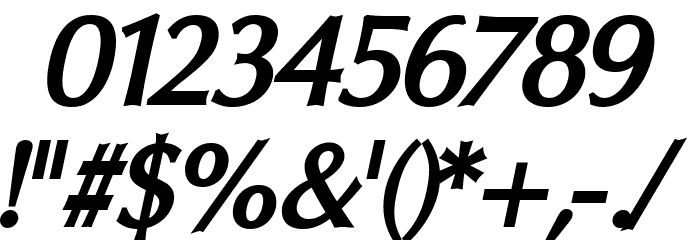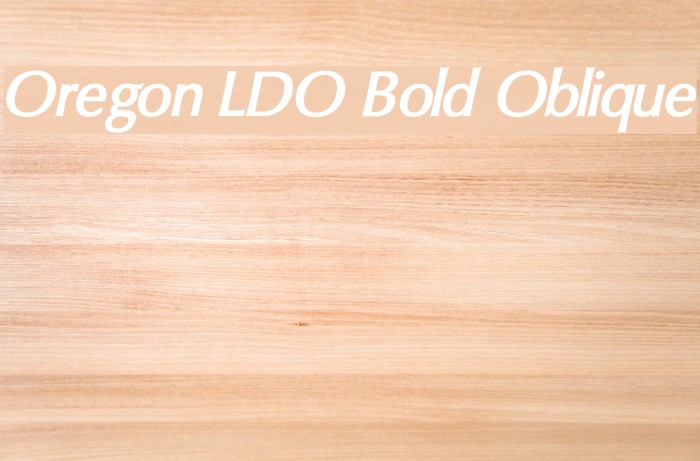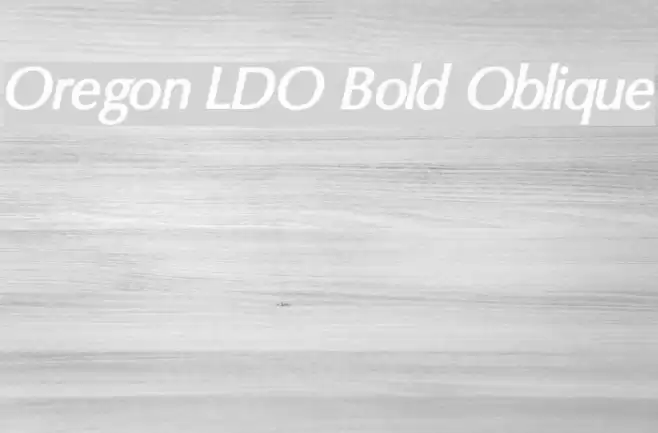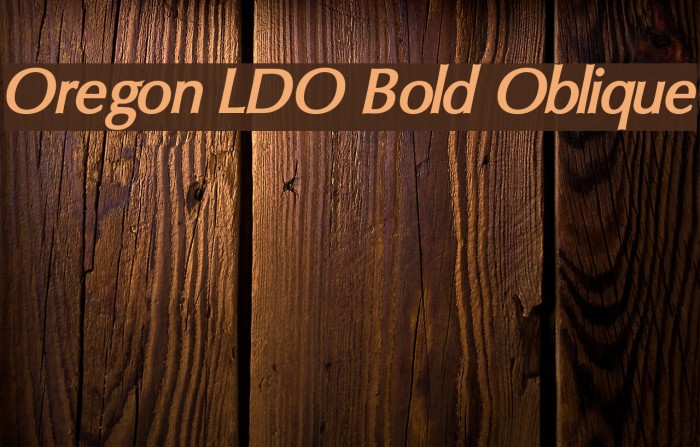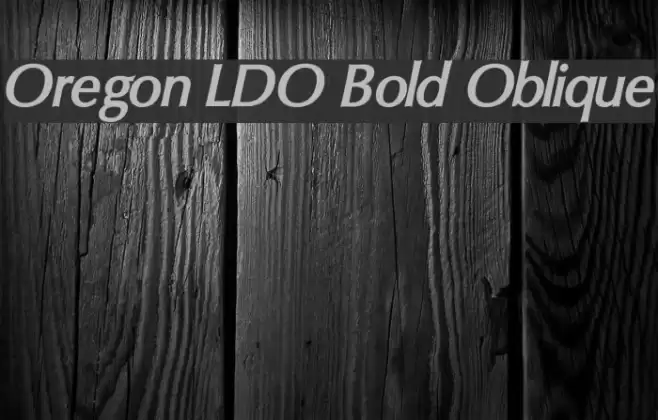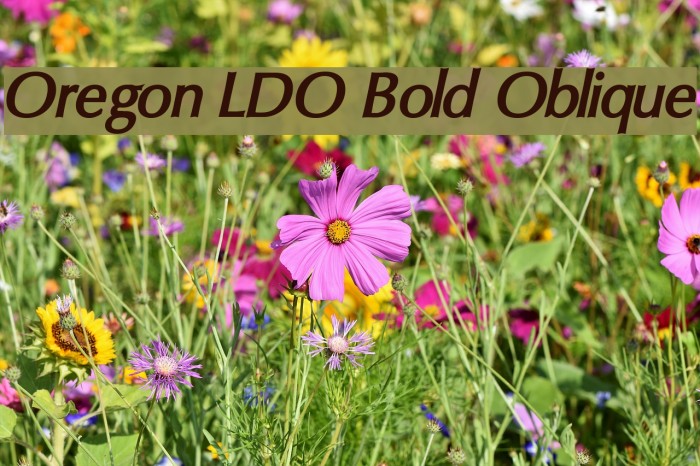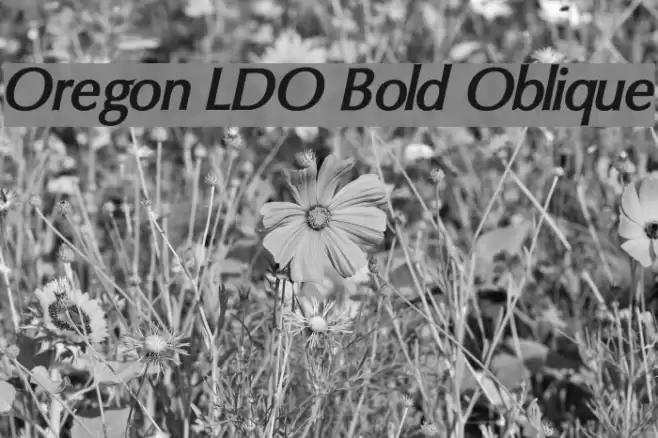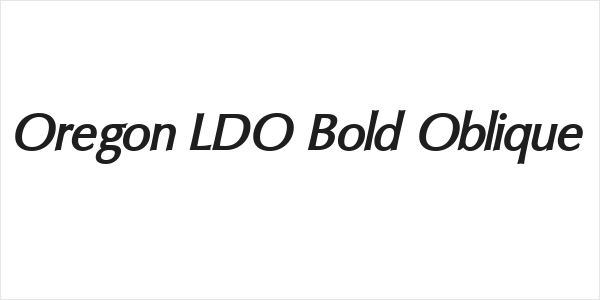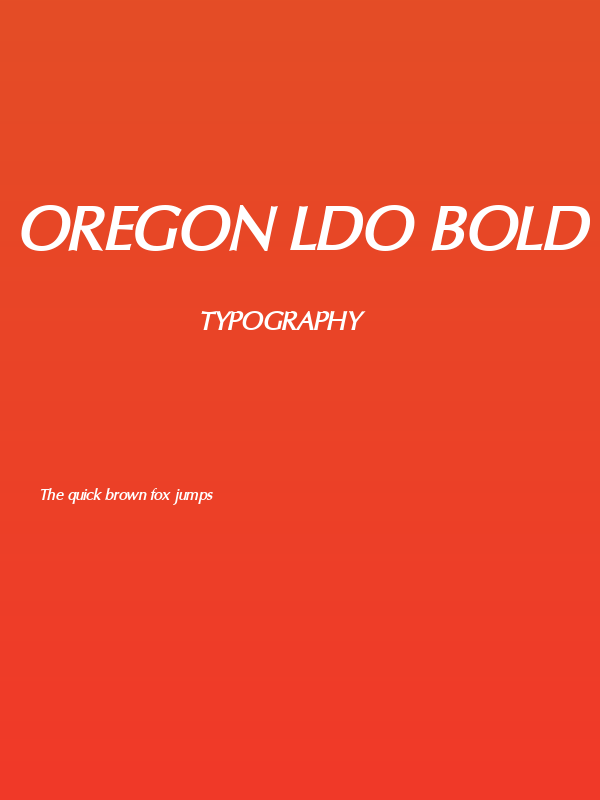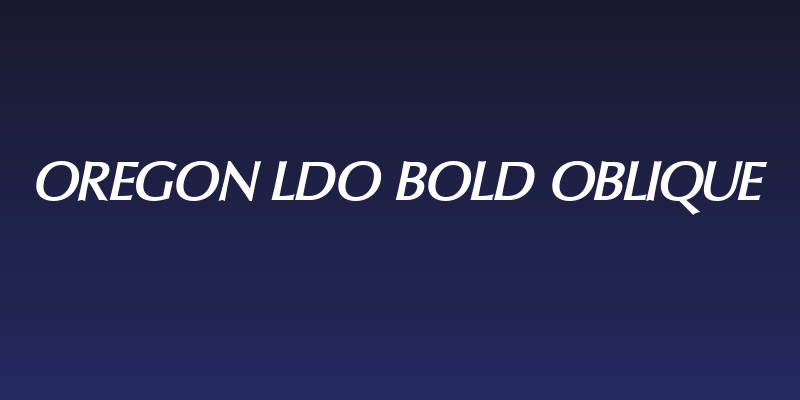
Oregon LDO Bold Oblique Font
Oregon LDO Bold Oblique Description
This font exhibits a bold and oblique style, characterized by its strong, slanted letterforms that convey a sense of dynamism and movement. The strokes are thick and consistent, providing a robust appearance. The uppercase and lowercase letters maintain a uniform slant, enhancing the italicized effect. The numerals and special characters follow the same design principles, ensuring cohesive visual harmony across all glyphs. The font's design is modern and sleek, making it suitable for various contemporary applications. Its boldness ensures readability, while the oblique nature adds a touch of elegance and flair.